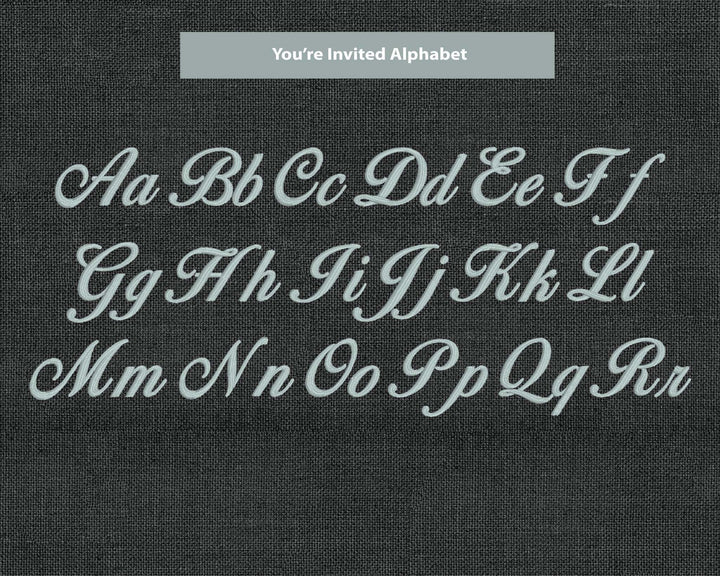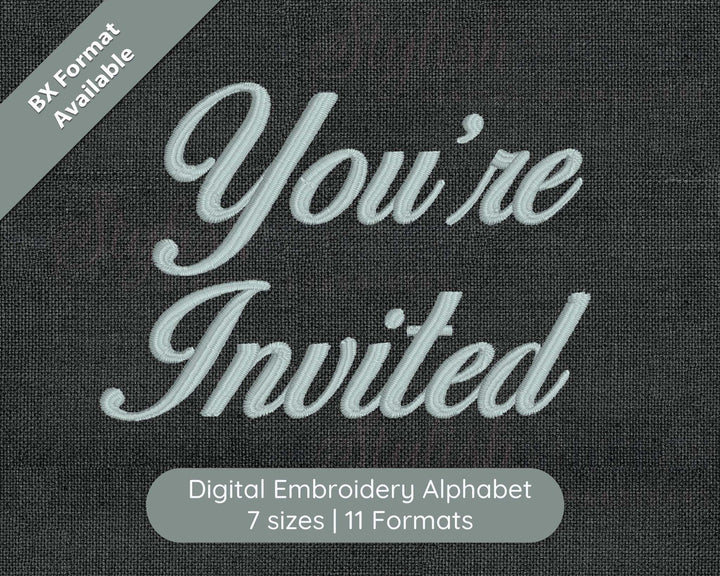
Photograph of You're Invited embroidery font
Photograph of You're Invited embroidery font alphabet
You're Invited Digital Embroidery Font
Discover the timeless Elegance of You're Invited, the ultimate embroidery font that effortlessly blends elegance with versatility. With its graceful, flowing script, You're Invited adds a touch of sophistication to any embroidery project, from monograms and names to quotes and more. Stitch with ease, as its clean lines and smooth curves make for a seamless embroidery experience on various fabrics and materials. Available in multiple file formats for compatibility with your embroidery machine, You're Invited is the go-to choice for those seeking to elevate their creations, be it for special events, everyday apparel, or stylish home decor. Upgrade your embroidery game today and let You're Invited's timeless appeal transform your projects into works of art.